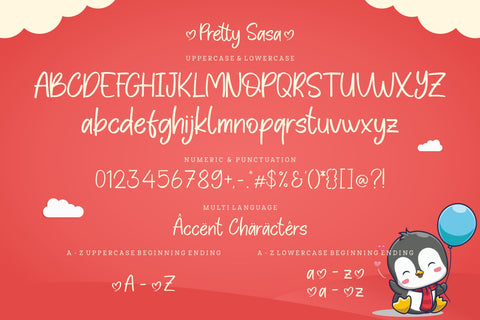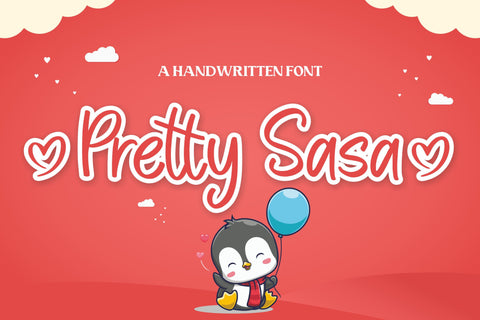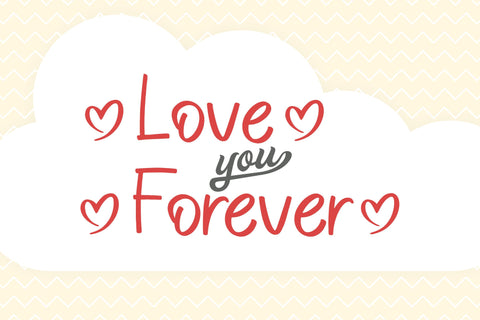
Pretty Sasa Handwritten Font
Pretty Sasa is a Handwritten Font.
Pretty Sasa can be used for wide ranges of application, such as wedding design, branding project, logo, poster, name card, invitations, social media posts, and others.